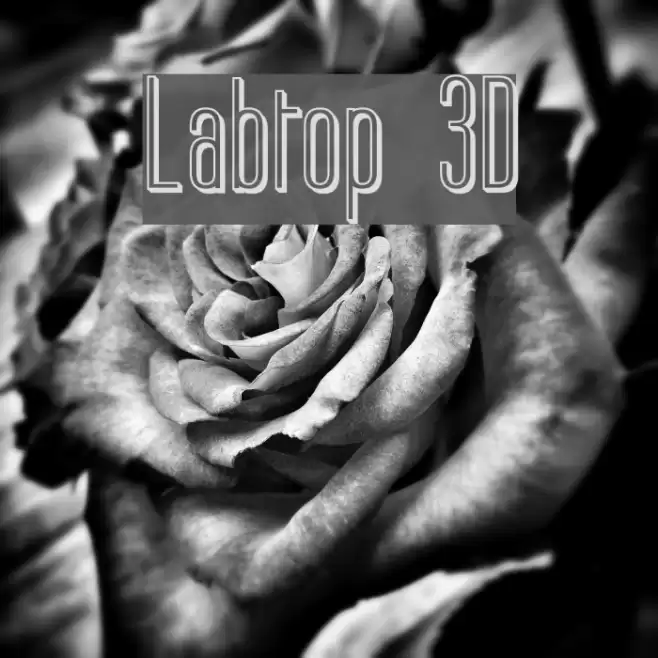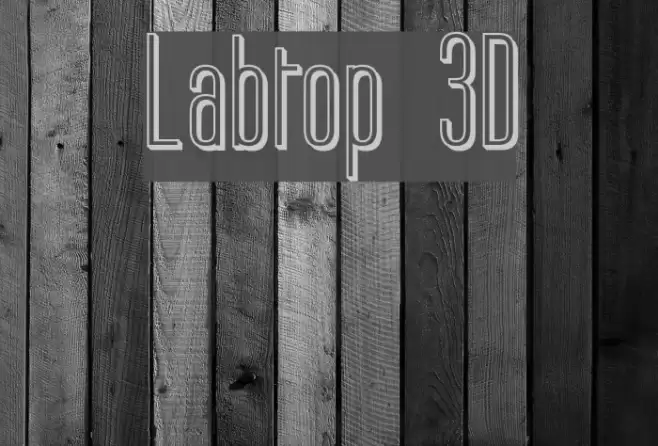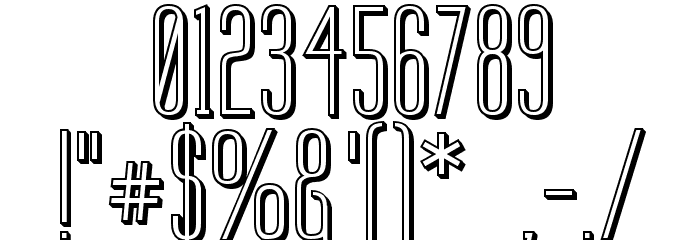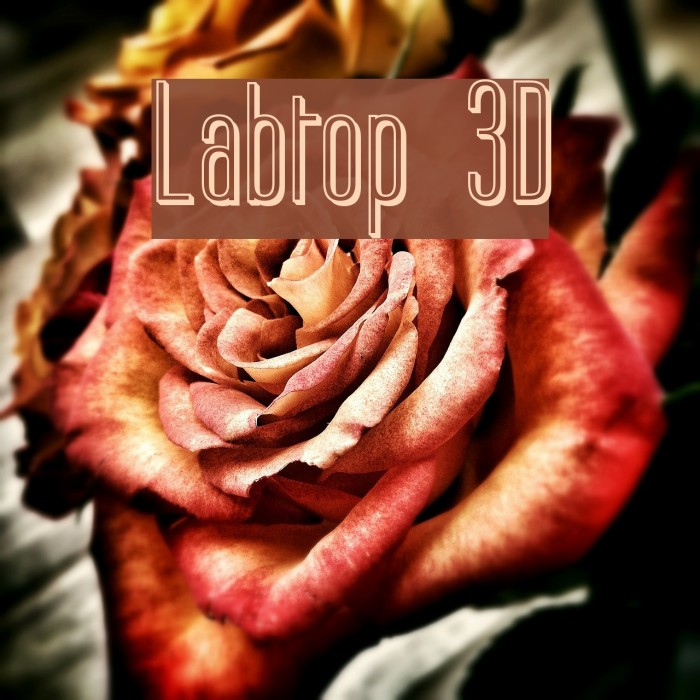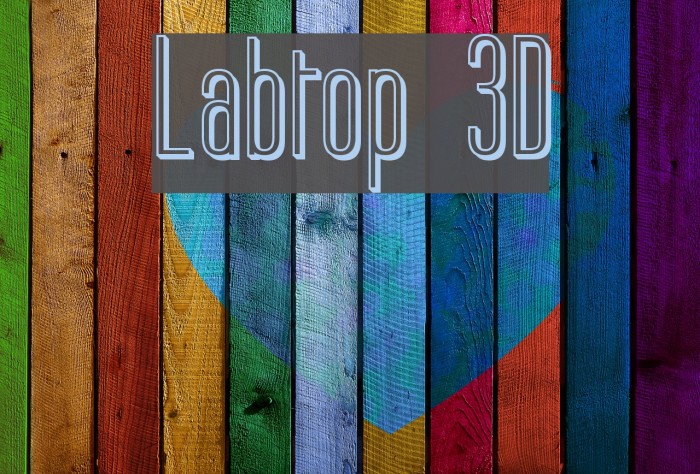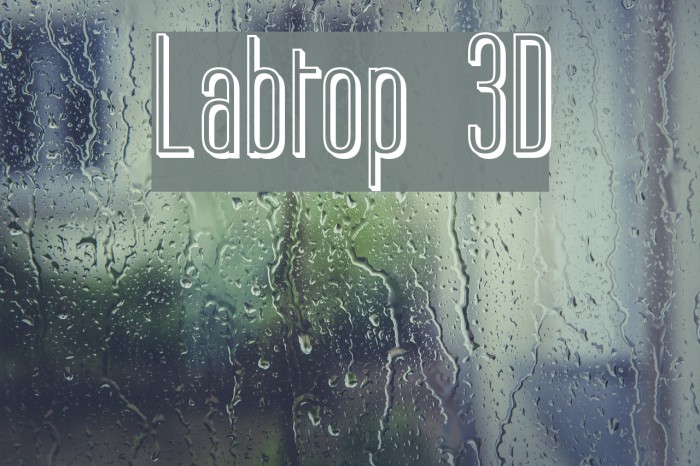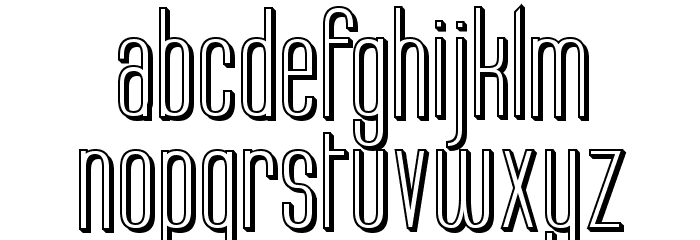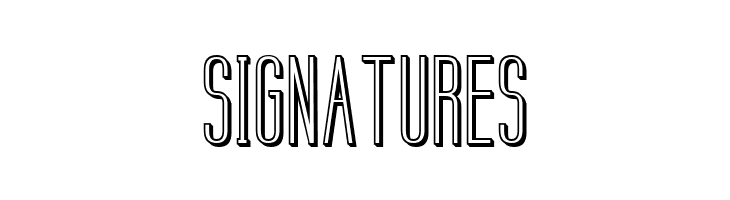
Labtop 3D Font
Labtop 3D Description
This font features a modern, geometric design with a three-dimensional effect. The characters are outlined, giving them a hollow appearance that adds depth and visual interest. The uppercase and lowercase letters maintain a consistent height and width, creating a uniform look. The numbers and special characters follow the same style, ensuring cohesion across all elements. The font's clean lines and structured form make it suitable for contemporary designs, while the 3D aspect adds a unique twist. This typeface is ideal for projects that require a bold statement or a futuristic feel.
A modern, geometric font with a 3D outline effect, offering a unique and bold appearance from Sans Serif fonts.
- Proposed Projects: Ideal for branding, posters, headlines, and any design needing a futuristic or standout look.